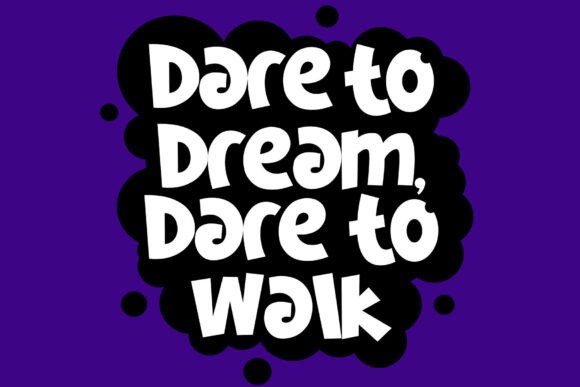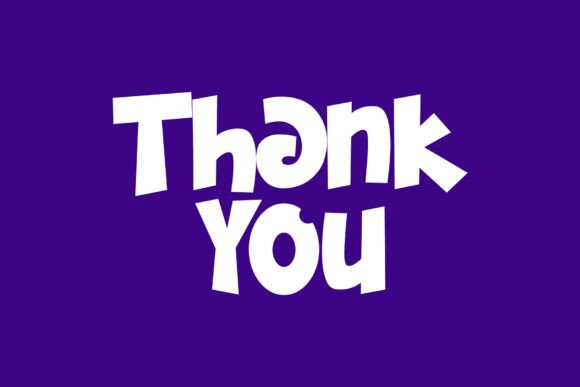
Introduction to Kong Bold Font
Have you ever stumbled upon a font that instantly sparks your creativity and sets your imagination ablaze? For designers, discovering the perfect font can be a game-changer, elevating a project from ordinary to extraordinary. For me, that font is Kong Bold Font – a vibrant display font that radiates energy, playfulness, and a dash of whimsy.
Imagine browsing through a free download website, and suddenly, you come across a font that exudes a carefree spirit and an infectious charm. That’s what Kong Bold Font does, making it an invaluable design resource for creative projects. Its exceptional personality shines through in every letter, imbuing your designs with a lively, animated appeal that’s hard to resist.
Whether you’re working on a high-quality logo, packaging design, or social media graphics, Kong Bold Font is the perfect choice for designers seeking a font that adds a touch of amusement and fun to their work.
Kong Bold Font
- High-quality font with a bold and edgy design, perfect for creative projects and design resources.
- Perfect for use in logos, typography, and other design elements where a bold and eye-catching font is required.
Honest Review: Kong Bold Font
As a designer, I’m always on the lookout for unique and high-quality fonts to elevate my creative projects. I recently had the chance to work with the Kong Bold Font, and I must say it’s been a great addition to my design resource library.
- ✨ The font’s bold and edgy design makes it perfect for creating attention-grabbing headlines and titles.
- ✨ The high-quality vector format ensures that the font remains crisp and clear, even when scaled up or down.
- ✨ The transparent background option allows for seamless integration with various design elements and backgrounds.
- ⚠️ The font’s limited character set may not be suitable for projects that require extensive typing or text editing.
- ⚠️ The font’s bold design may not be suitable for all types of projects, such as formal or professional settings.
Overall, I’m impressed with the Kong Bold Font’s design and versatility. While it may have some limitations, it’s a great resource for designers looking to add a bold and edgy touch to their creative projects. Plus, it’s free to download, making it an excellent addition to any design library.
The Kong Bold Font is perfect for use in creative projects, including:
- Logos and branding
- Presentation slides
- Documents and reports